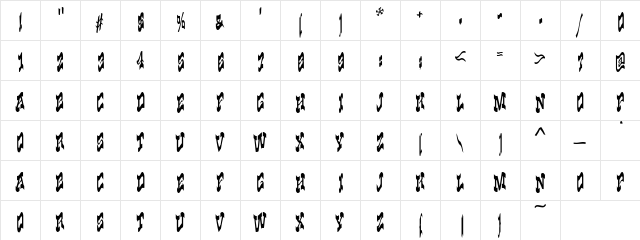
Excogitated04 Regular Font Preview
Excogitated04 Regular
Design Context for Excogitated04 Typeface
Excogitated04 is a composed and adaptable typeface that performs quietly and consistently across a wide range of design contexts.